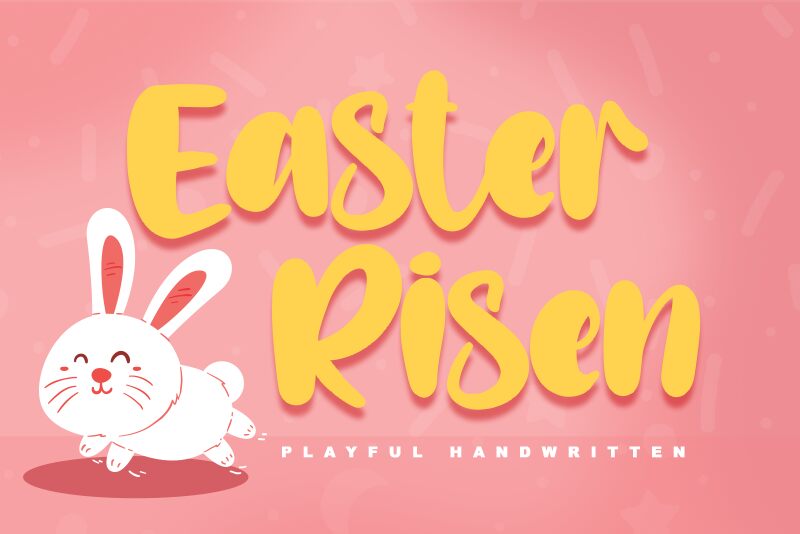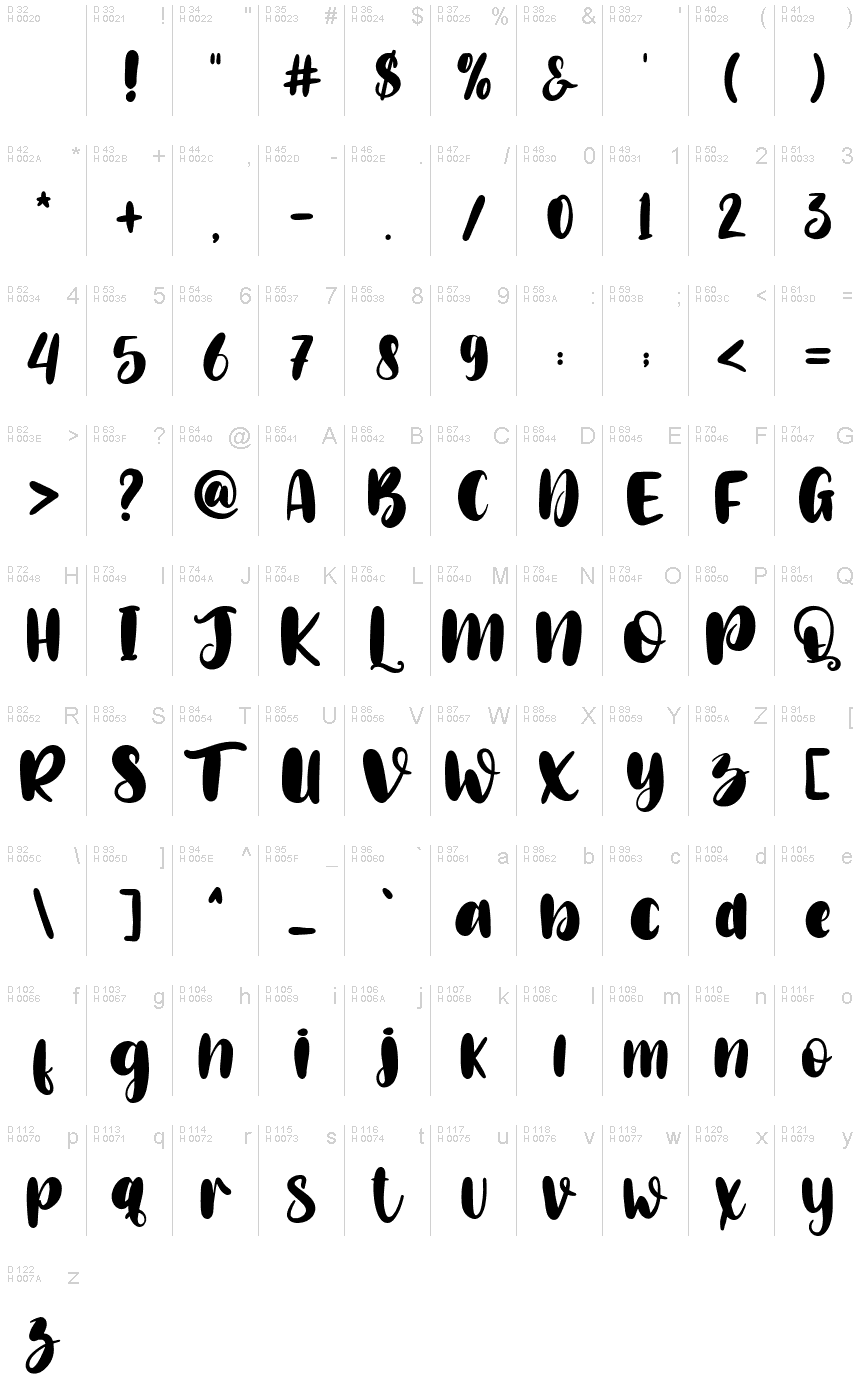
Easter Risen by Letterara breathes new life into the brush font category with its bold, exuberant strokes that capture the essence of a joyful springtime awakening. This friendly handwritten typeface boasts an organic, free-flowing charm that is as versatile as it is delightful, making it an ideal choice for designers looking to inject a touch of personality into their work. Its robust weight ensures standout legibility, while its relaxed style conveys warmth and approachability.
Perfect for logos, branding efforts, festive Easter cards, and captivating invitations, Easter Risen promises to elevate your creative projects with its distinctive character and playful sophistication.